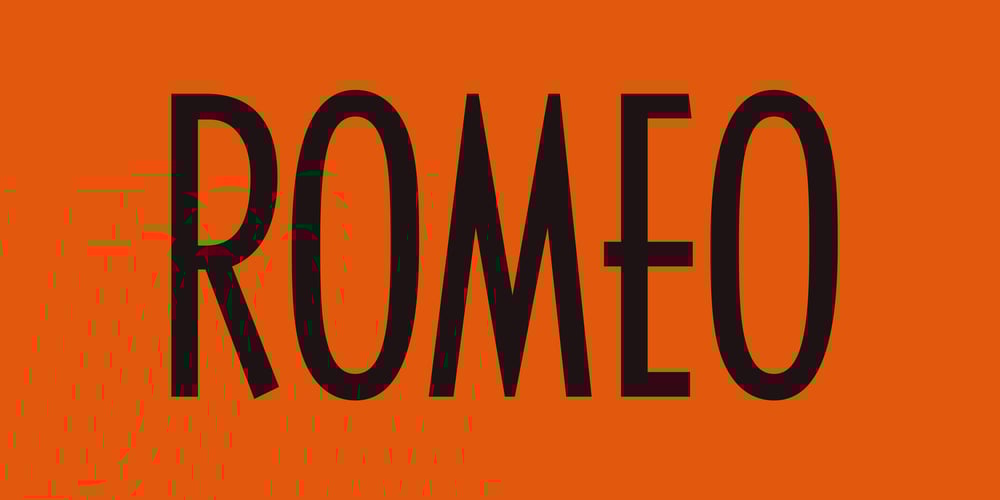
Romeo Font Family was designed by David Berlow and published by Font Bureau. Romeo contains 2 styles and family package options. David Berlow drew Romeo Medium Condensed during winter of 1990, basing the design on the Estrecha Fina weight of Electra, a spectacular art deco sanserif with an unusually fine condensed series. Carlos Winkow designed it circa 1940 for the Nacional typefoundry of Madrid, the leading typefoundry in Spain. Jill Pichotta drew the ultra-light Skinny Condensed, a digital tour de force released with Medium Condensed; FB 1990–91